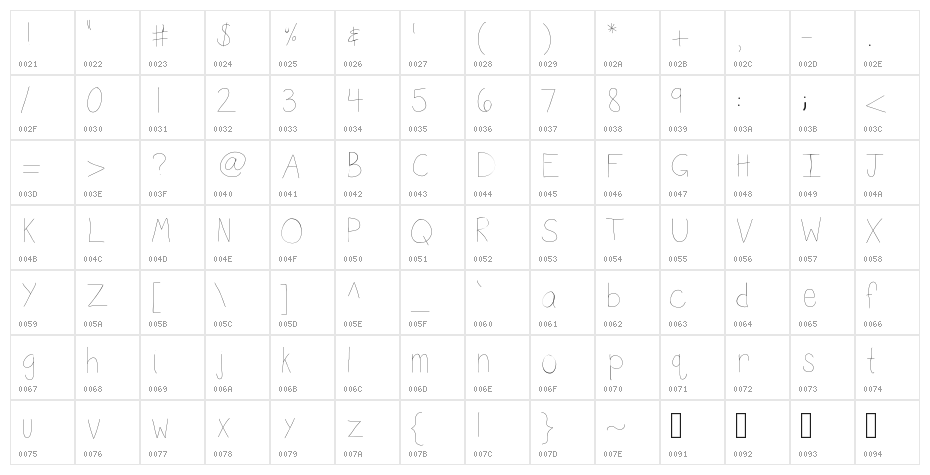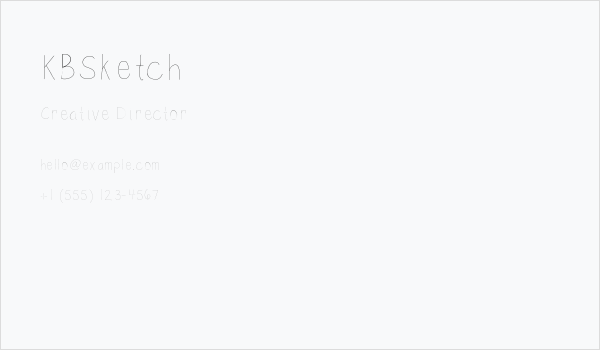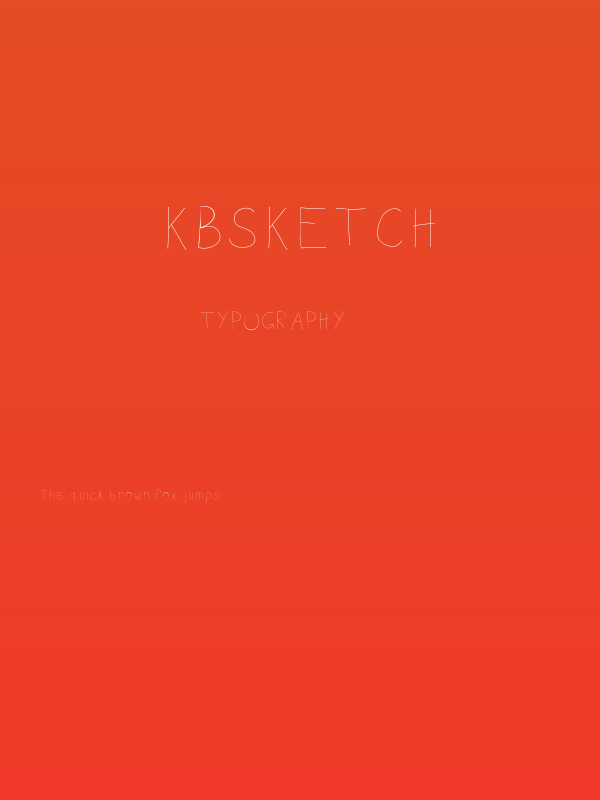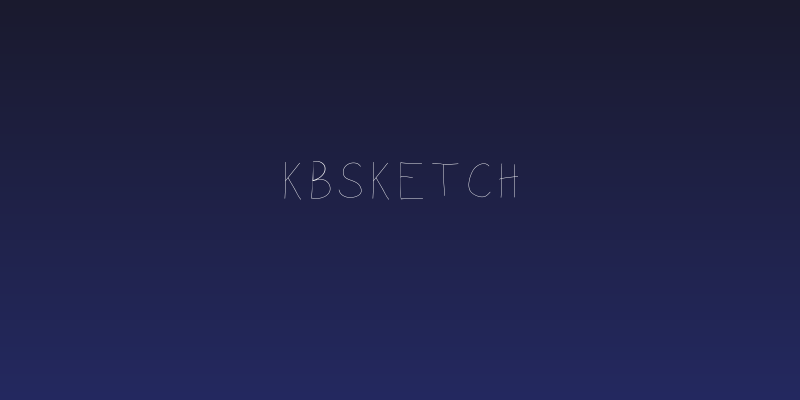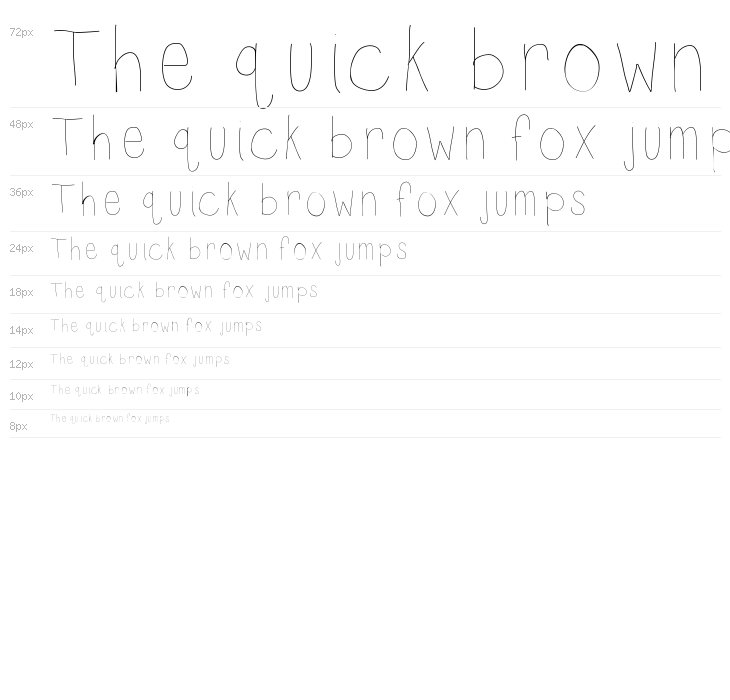
KBSketch Font
| Stile generale | Casual |
| Caso d'uso | Headlines, Informal text, Creative projects |
| Progetti proposti | Ideal for children's books, greeting cards, personal blogs, and creative branding projects. |